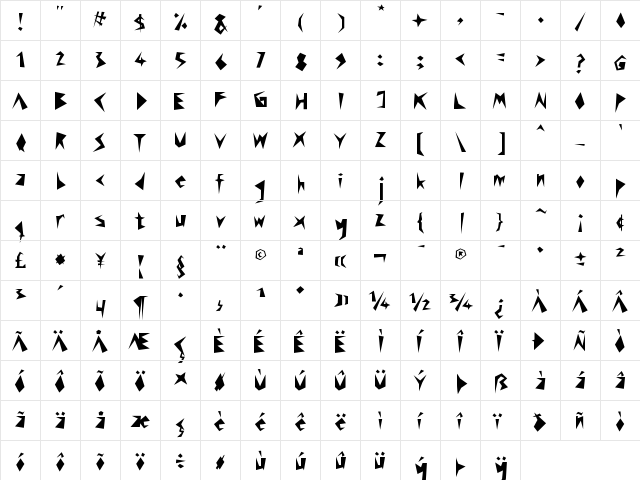
Rock Stair Regular
| Foundry | Darwinoo |
| Designer | Darwinoo |
Design Context for Rock Stair Typeface
Rock Stair is a composed and adaptable typeface that performs quietly and consistently across a wide range of design contexts.